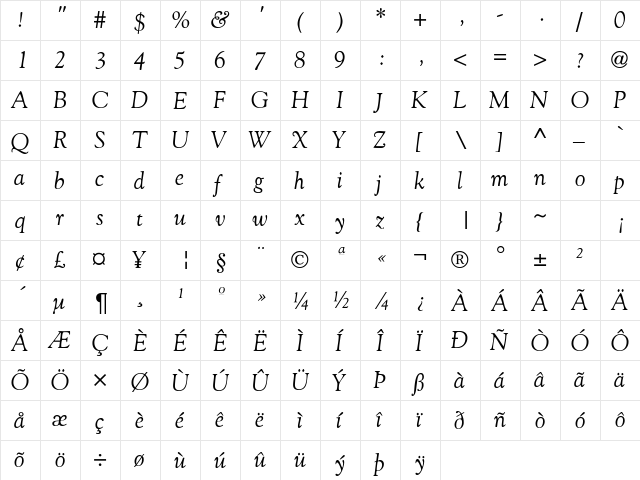
GoliathDB Italic
Design Context for GoliathDB Typeface
GoliathDB is a composed and adaptable typeface that performs quietly and consistently across a wide range of design contexts. The dynamic lean of this cut emphasises speed and emphasis in any layout.
Pro Tip: Try GoliathDB for annotation and caption copy alongside an upright companion — the contrast in angle creates a dynamic but ordered typographic system.